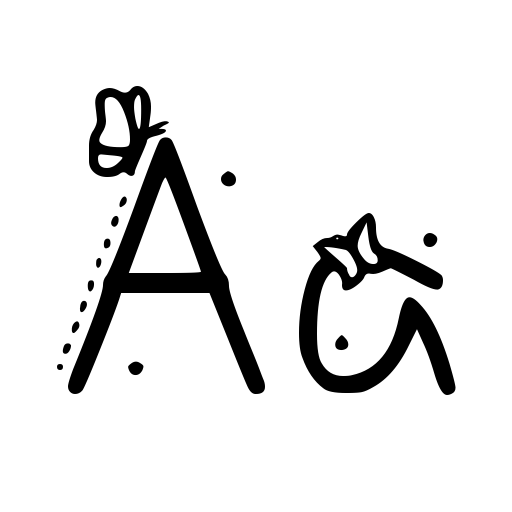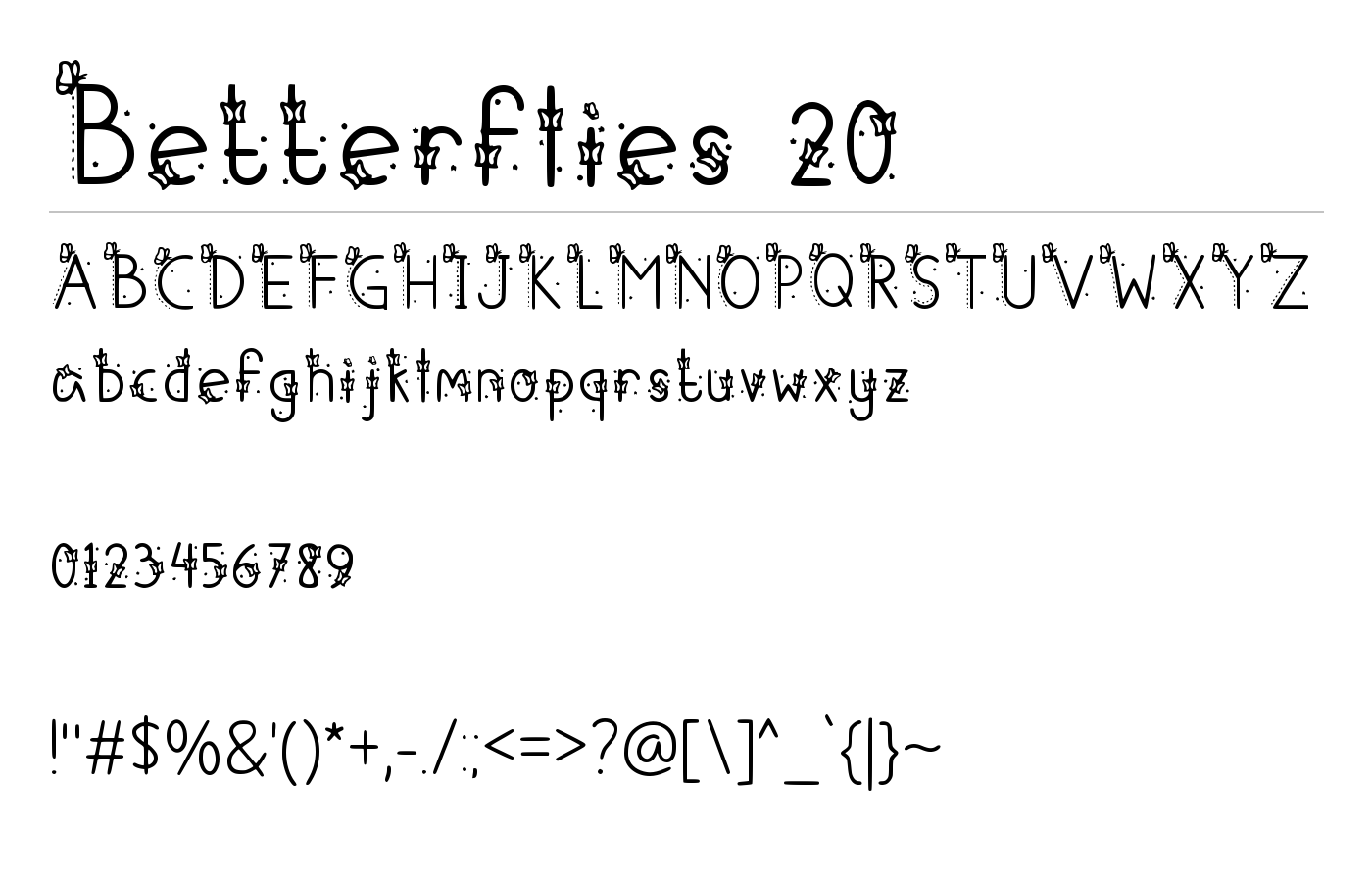
Betterflies 20 is a playful, decorative sans serif font characterized by slender strokes adorned with whimsical butterfly motifs, giving it a light and airy feel. Its narrow width and simple letterforms make it charming and suitable for creative projects aimed at a youthful or nature-inspired audience. This font works best for fun headlines, invitations, and branding that seeks a unique, approachable personality.
Betterflies 20 Font
About Betterflies 20 Font